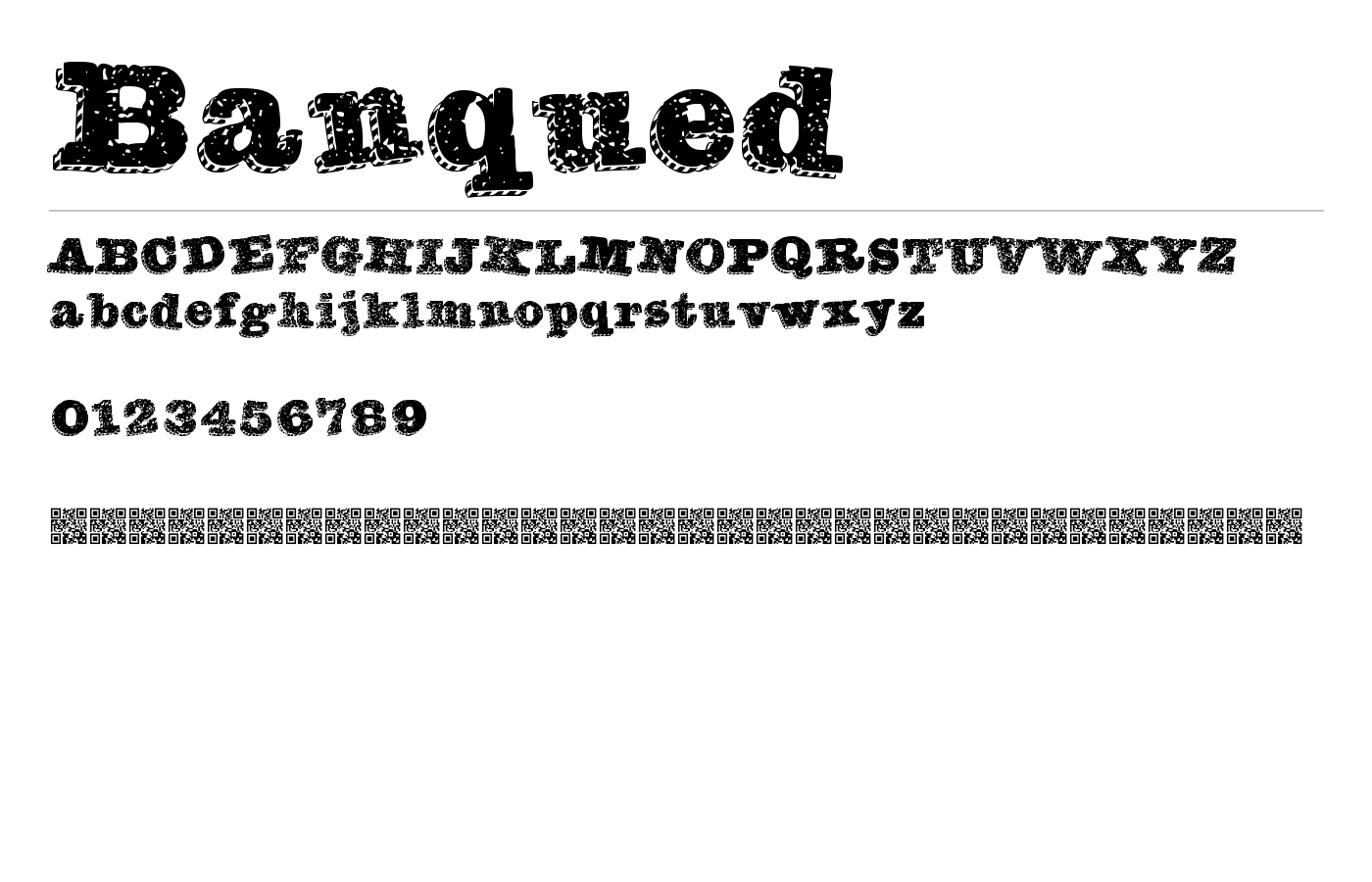
Banqued is a bold, slab serif font with a distressed, textured look that adds a rugged, vintage charm. Its strong weight and thick serifs combined with a rough, worn texture make it ideal for eye-catching headlines, posters, and branding with a retro or industrial vibe. This font works especially well where a bold, impactful statement with a handcrafted feel is desired.
Banqued Font
About Banqued Font